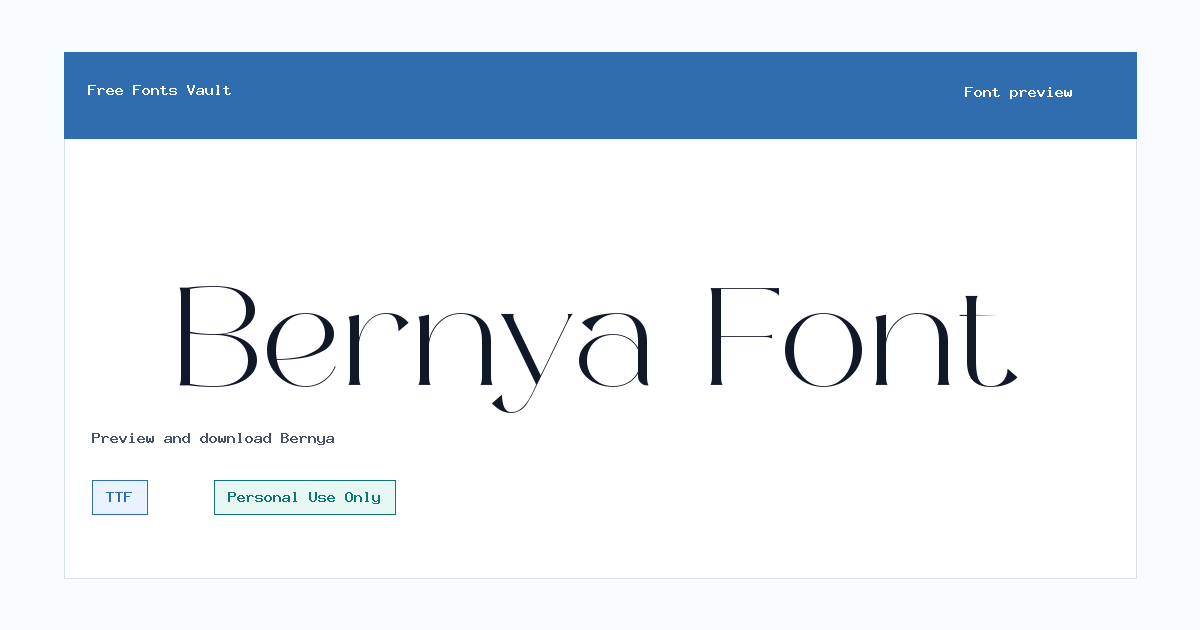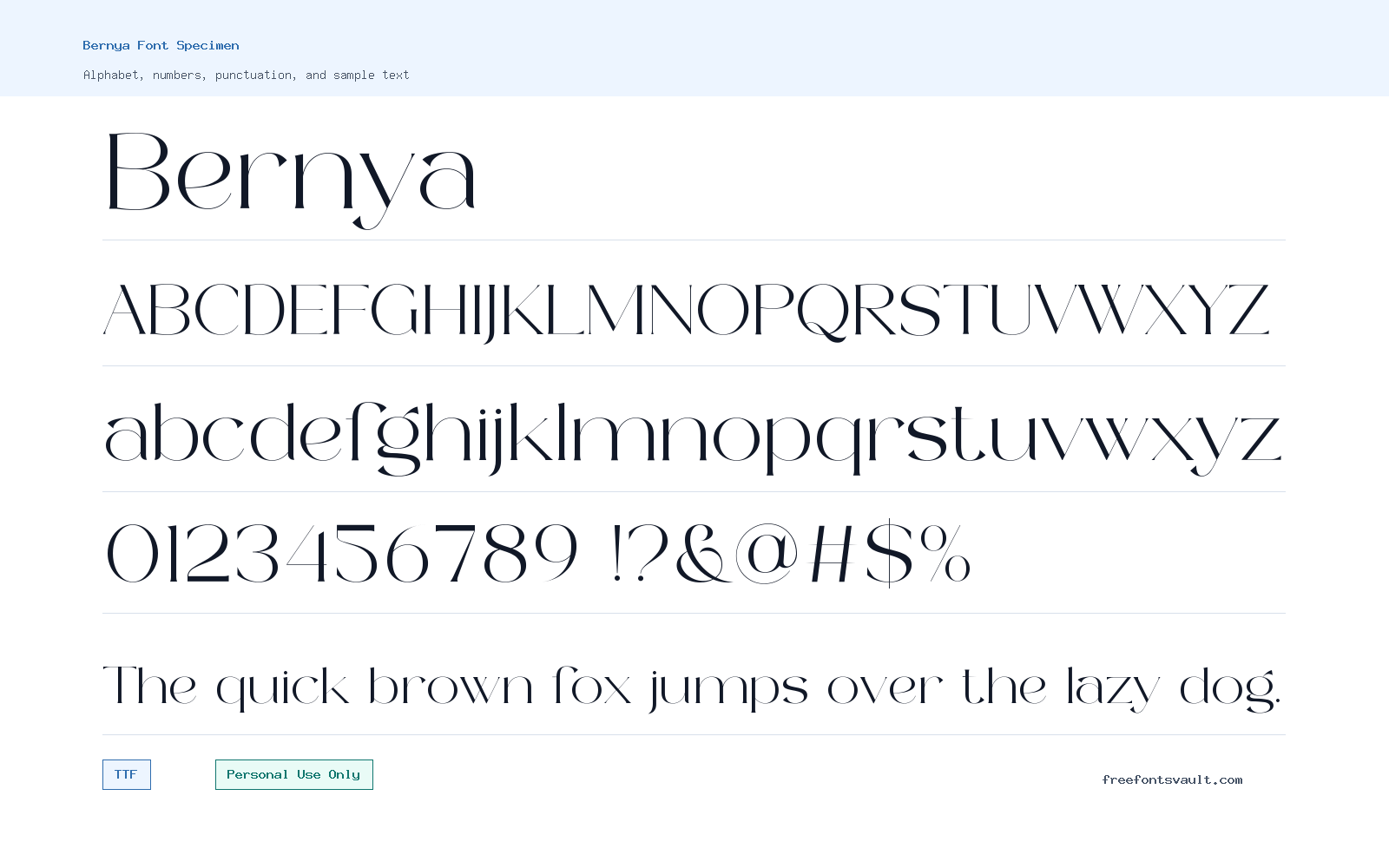
Bernya
Bernya font.
Bernya is a serif font with a decorative, display-friendly feel. It is best approached as a font for short, styled text rather than long reading, especially when you want a title or graphic to feel more distinctive.
About Bernya Font
Bernya comes in a regular weight and uses a serif structure, giving the letters a more formal shape than a simple sans serif. Because the family information does not list multiple weights or styles, the regular cut is the main version to test. That makes it useful for focused design moments such as headings, nameplates, quote graphics, invitations, mood boards, labels, and social media text where one strong type style is enough.
- Regular serif style suited to short display text and title treatments
- Logos, headings, invitations, labels, quote graphics, and social posts for personal projects
- Mockups, mood boards, branding drafts, and typography experiments where a single serif style is enough
What kind of font is Bernya?
Bernya is listed as a serif font in a regular style. It works best for short display text such as headings, labels, invitations, and graphic titles.
Is Bernya good for body text?
It is safer to use Bernya for short text. For paragraphs, menus, or small captions, pair it with a simpler font that stays readable at smaller sizes.